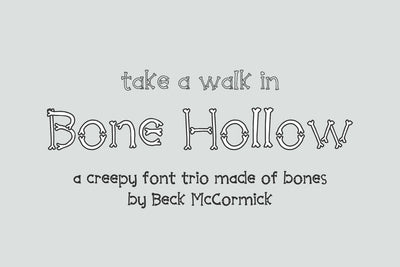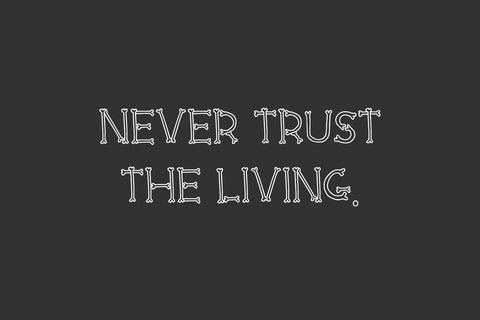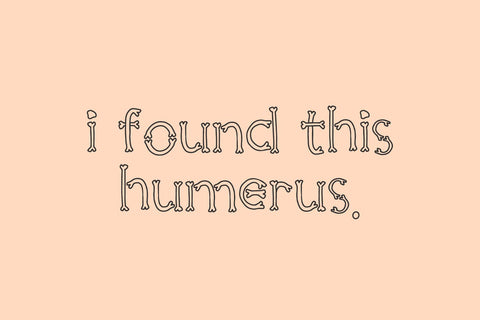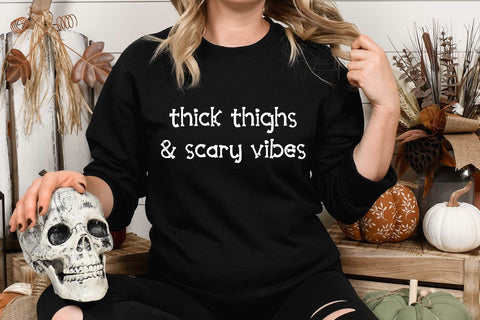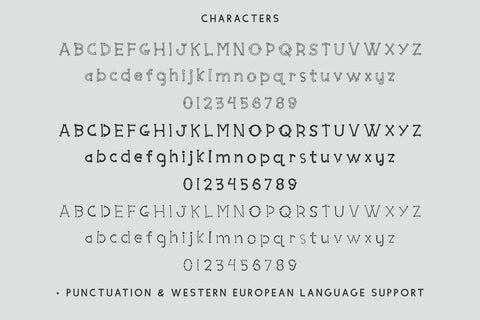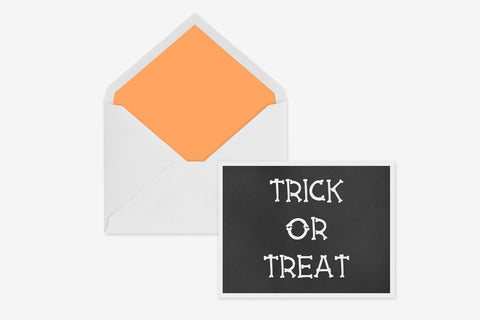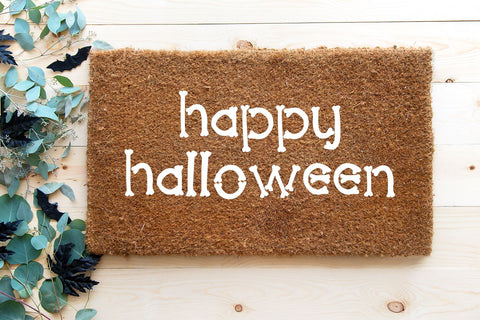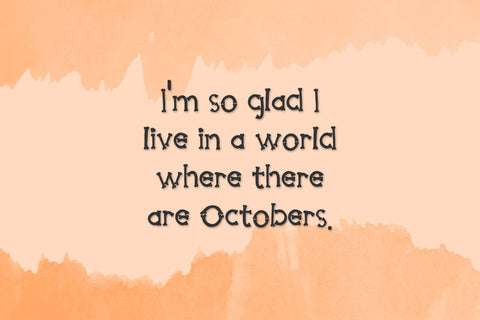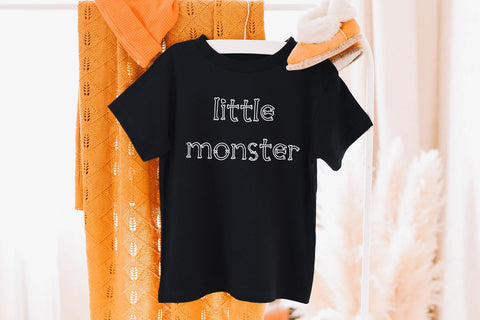
Bone Hollow Font Trio
Take a walk through Bone Hollow - meet this new scary font, perfect for your Halloween projects! Bone Hollow includes three versions - a solid version, a hollow version, and a skinny version.
Bonus! Layer the hollow & skinny versions together to create a two-color filled creation.
Bone Hollow is excellent for spooky home decor projects, your Cricut or Silhouette machine, scary logo or branding projects & marketing materials, social media graphics, & more!
- full upper + lowercase characters
- numbers + punctuation
- Western European language support